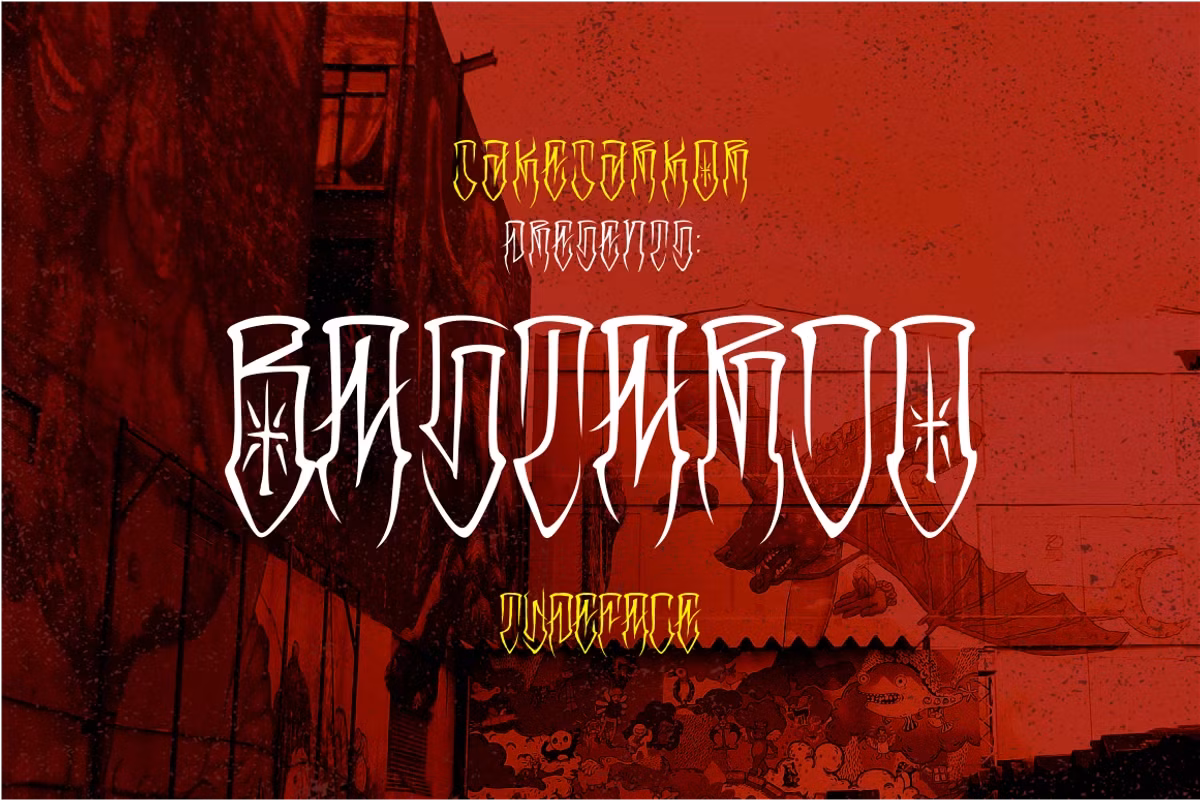
BASTARDO Font Free Download is a bold, rebellious display typeface with raw attitude and a gritty, streetwise edge. Inspired by underground culture, punk aesthetics, and urban graffiti, this font is perfect for edgy branding, music posters, skatewear, zines, and designs that break the rules.
With rough textures, jagged lines, and a hand-crafted vibe, BASTARDO doesn’t play by the book—it demands attention and adds unapologetic energy to your visuals. Whether you’re creating artwork for a band, designing streetwear merch, or making a bold statement on social media, this font hits hard. You’re welcome to test it for free, but a commercial license is required for any monetized or client-based projects.
Turn up the volume on your designs with BASTARDO Font Free Download and let your typography speak loud, proud, and full of character. A must-have for creatives who design with grit and guts.